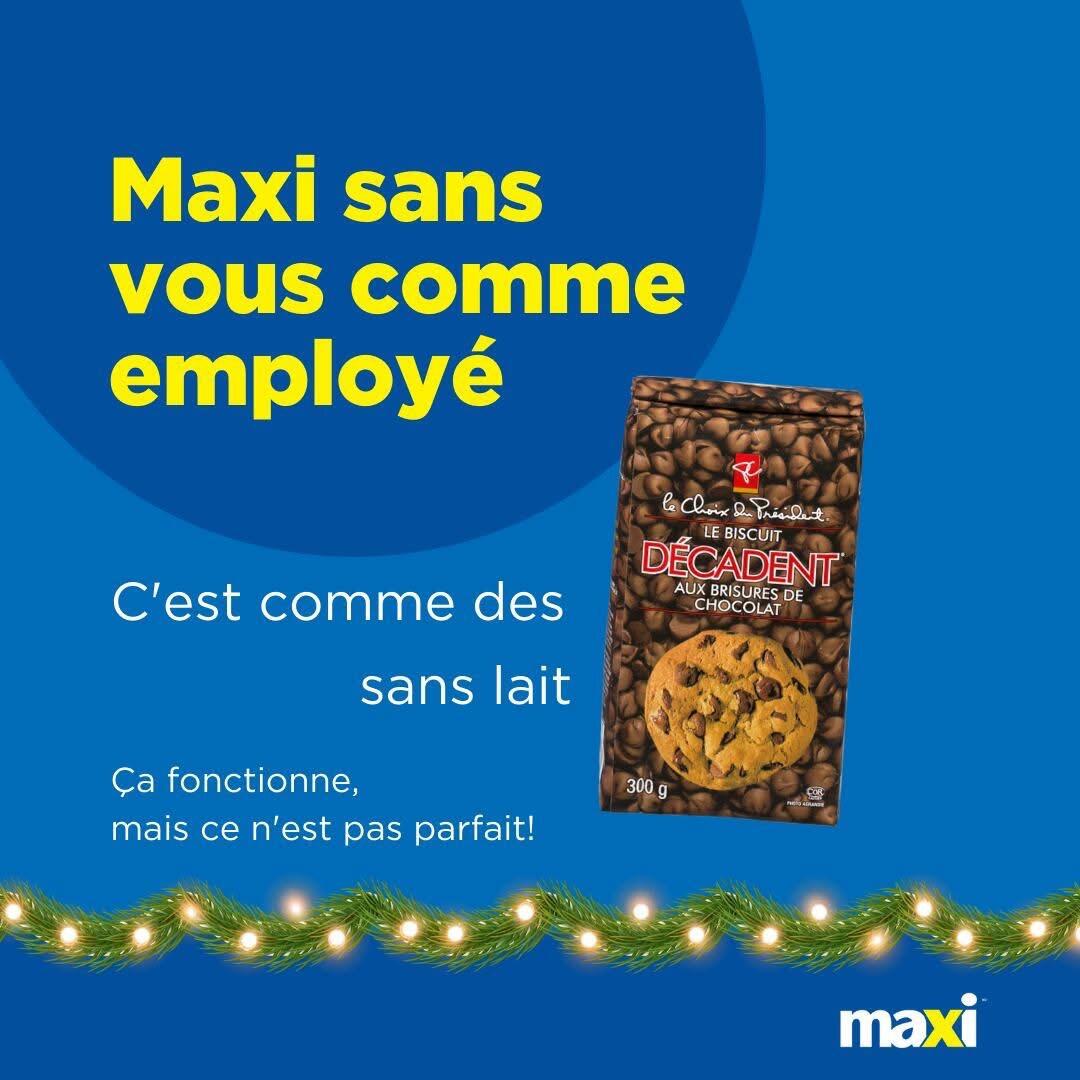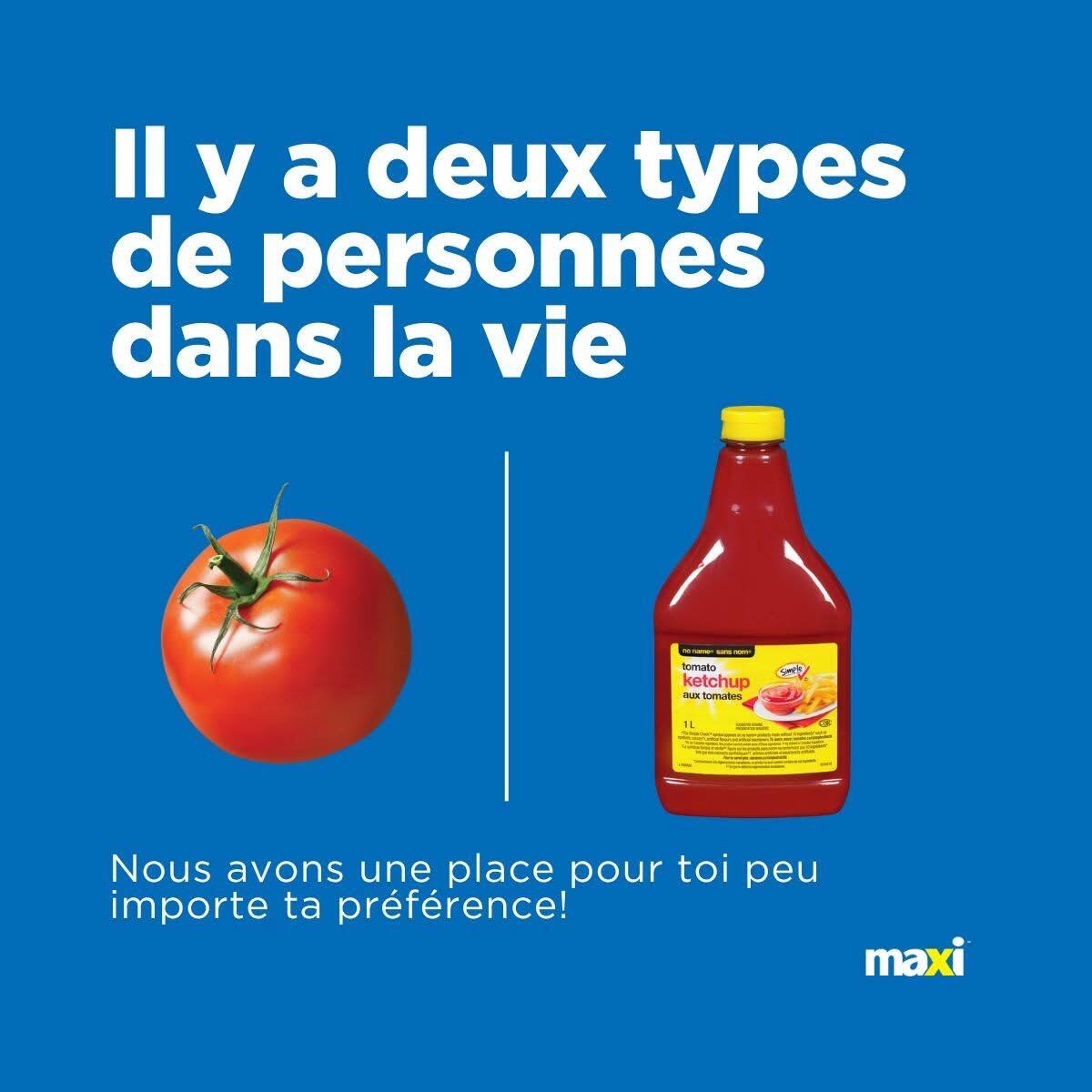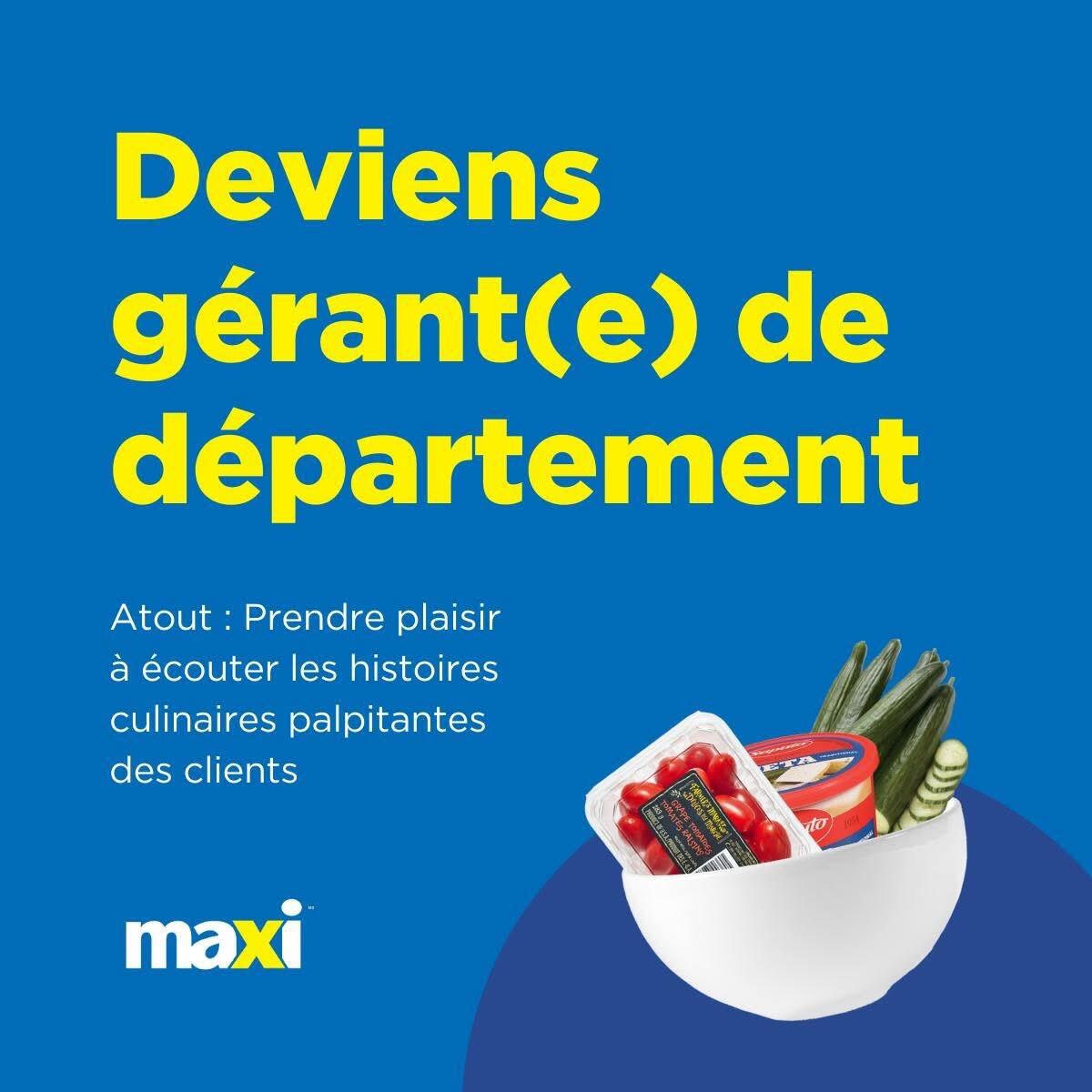
What is the font text of Maxi?
So, I am looking for this Canadian French store text font (the one with big letters). It’s actually Maxi, which is belongs to Loblaw’s too. If anyone knows the name of the text font, please reply. If you also know the name of the text font of the tiny letters, it’ll help me too. Thank you!
Looks like some variant of Gotham (black).
Hello, Alex, these images use different weights of Gotham.